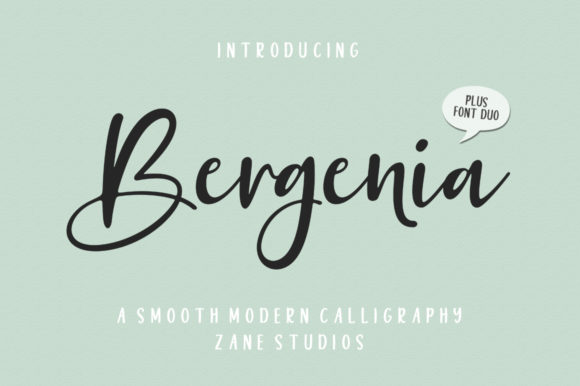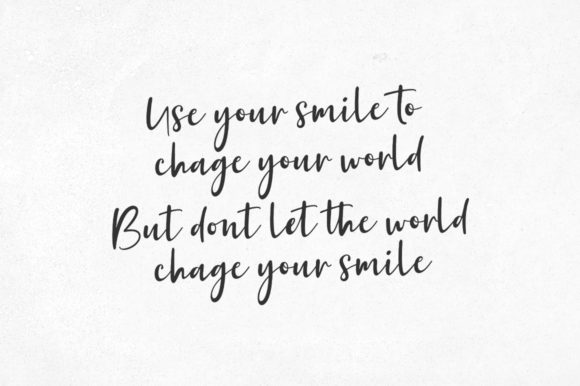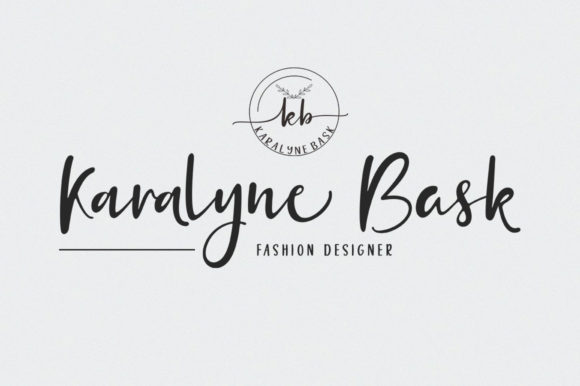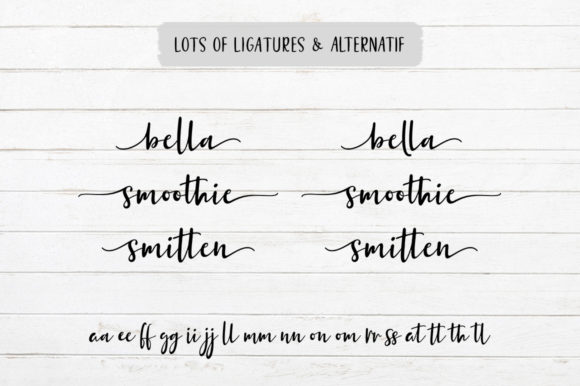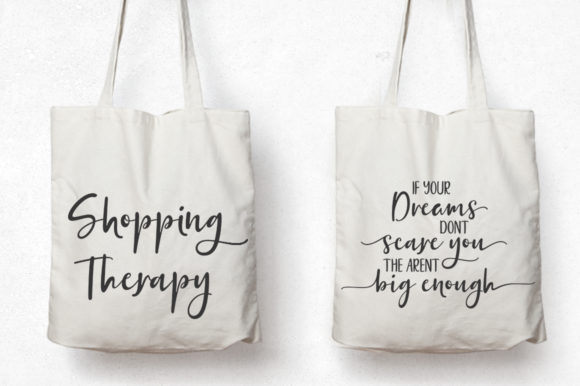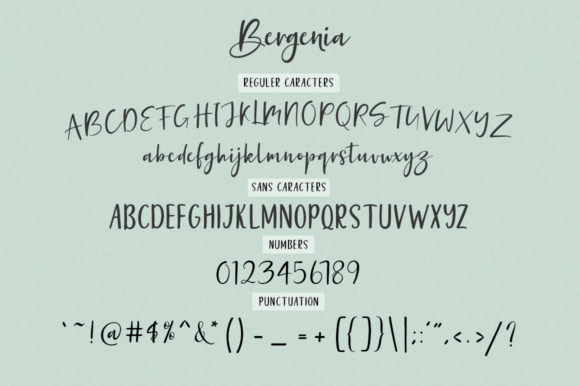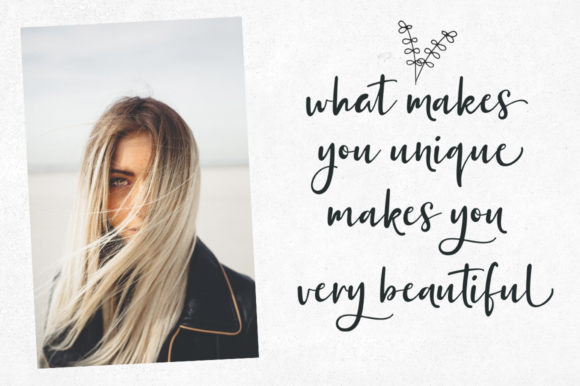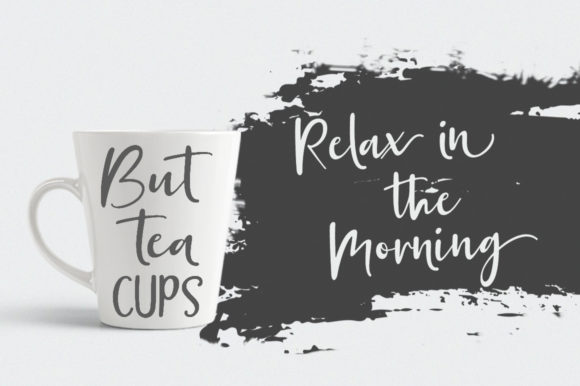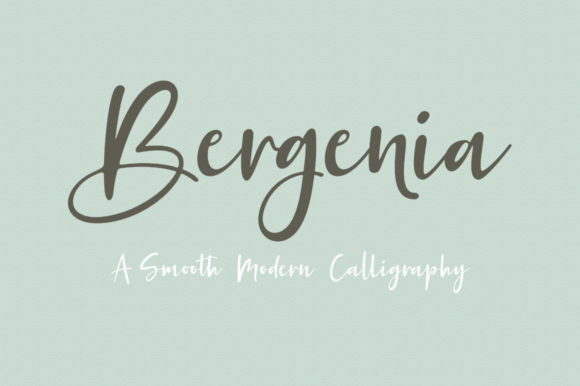
HomeScript FontsBergenia Duo Font Script Fonts Bergenia Duo Font FacebookXPinterestWhatsApp Bergenia Duo Font Poster 2 Bergenia Duo Font Poster 3 Bergenia Duo Font Poster 4 Bergenia Duo Font Poster 5 Bergenia Duo Font Poster 6 Bergenia Duo Font Poster 7 Bergenia Duo Font Poster 8 Bergenia Duo Font Poster 9 About Bergenia Duo Font Bergenia is a modern script dup with a stunning vibe. It will add a natural flow to any design project! DOWNLOAD NOW People also explored Dreamlike Script Font Swash Zillong Font Hudson Font Australia Font Peppered BTN Winter Coming Font Little Girl Font Damia Font Stellon Font 419 0 TagsBergenia Duo Font Previous articleSahitya FontNext articleBluehill Font LEAVE A REPLY Cancel reply Comment: Please enter your comment! Name:* Please enter your name here Email:* You have entered an incorrect email address! Please enter your email address here Website: Save my name, email, and website in this browser for the next time I comment. Personal Use Free Bestlife Personal Use Free Read more about this font Numberpile Personal Use Free Read more about this font Twisty Girlz Personal Use Free Read more about this font Victorian Ornaments Personal Use Free Read more about this font BLOG Elegant Wedding Invitation Fonts – Handwritten & Script Fonts Elegant Wedding Invitation Fonts Your wedding day is one of the most important moments of your life, and every detail matters—including your invitation design. Our... Fonts That Capture the Spirit of New York City Top 7 Google Fonts Alternatives for Faster and Privacy-Friendly Web Design (2025) Top 10 Handwritten Fonts That Elevate Your Designs